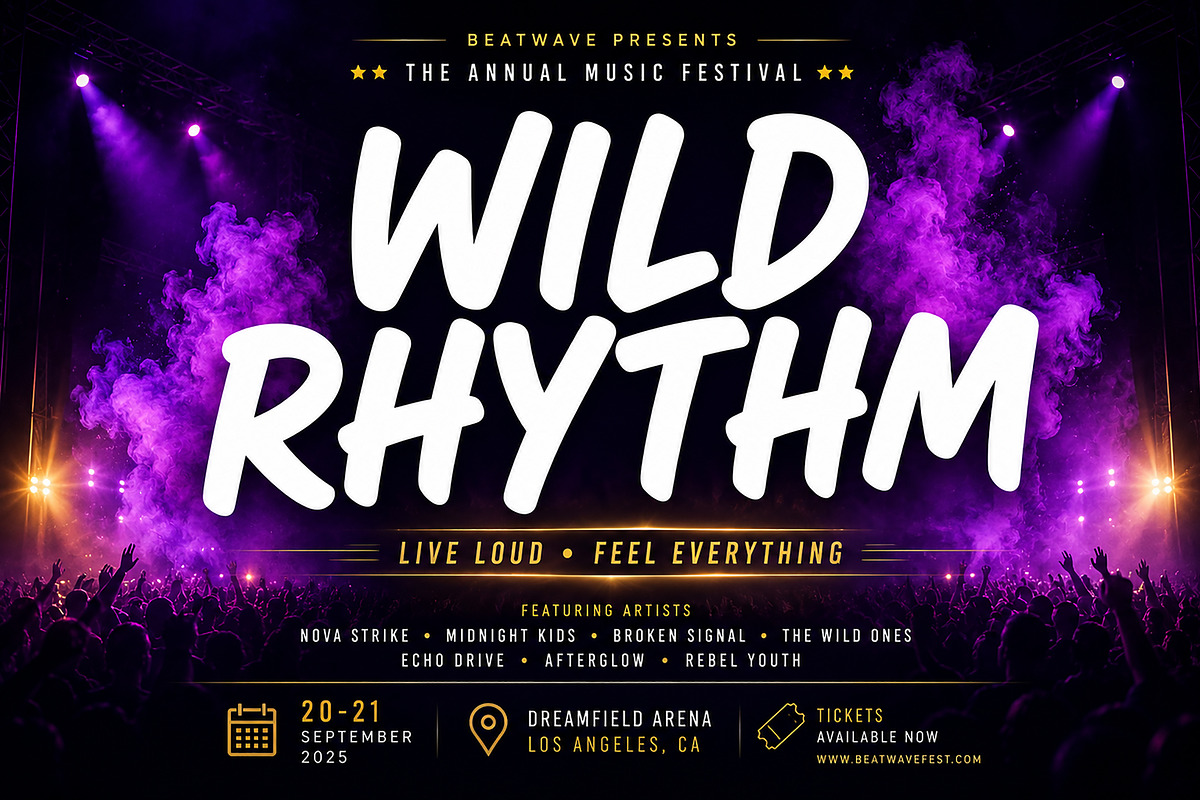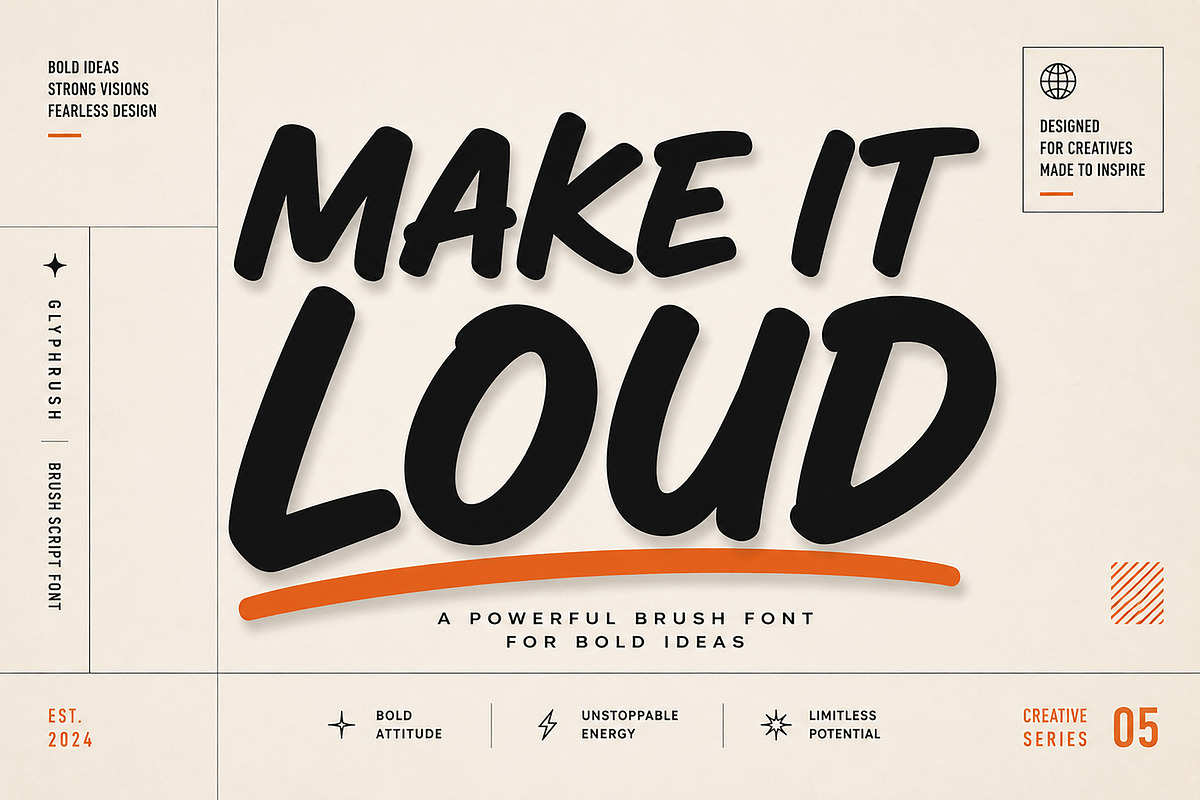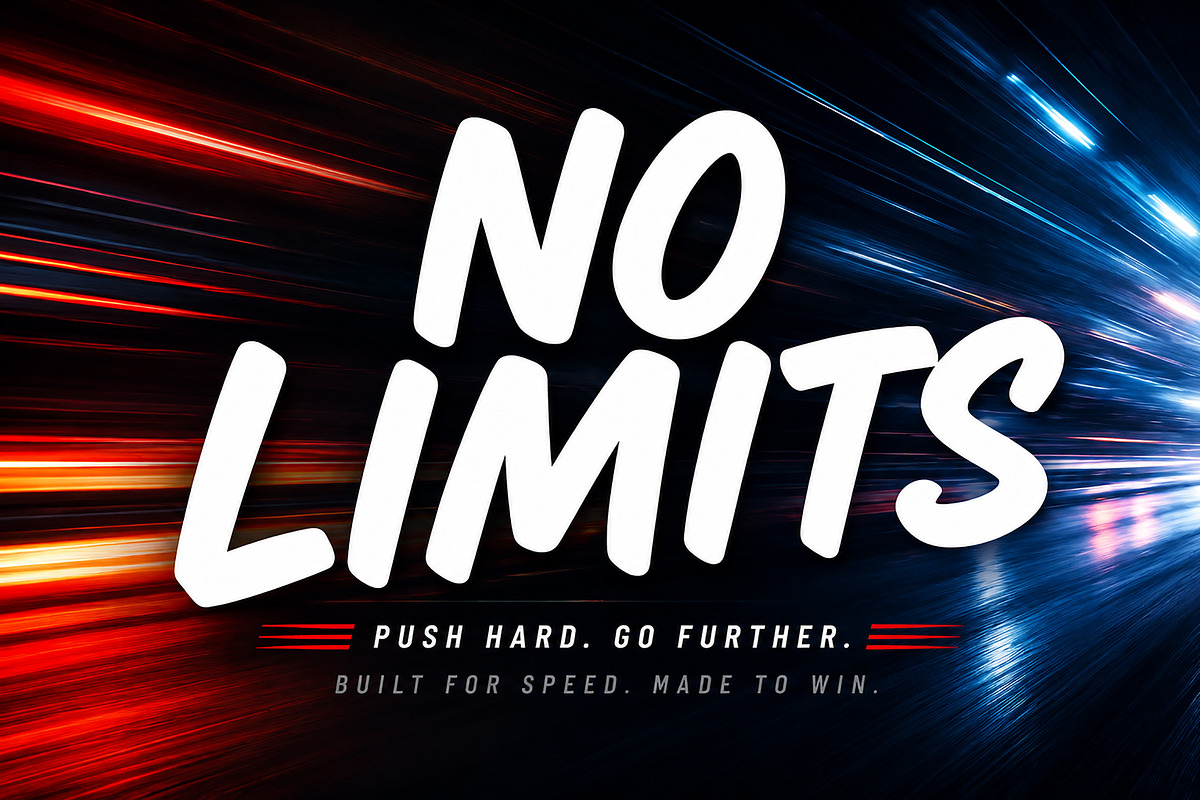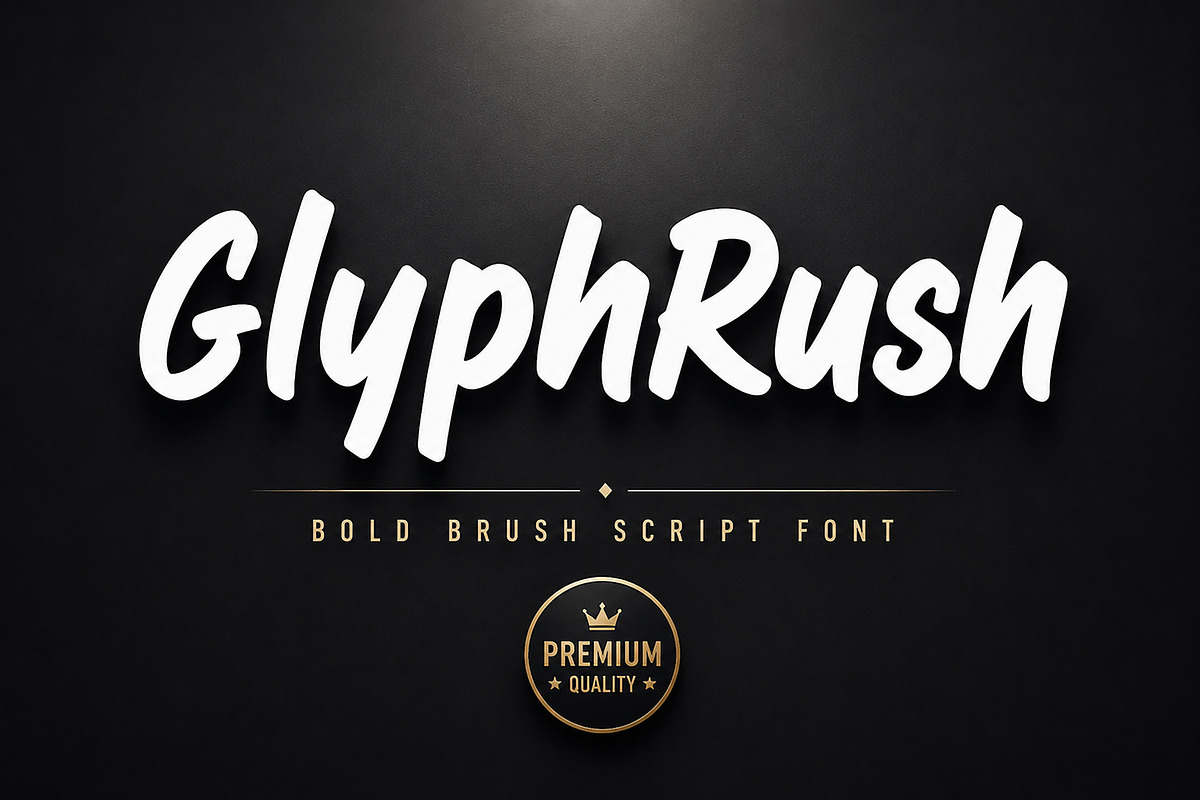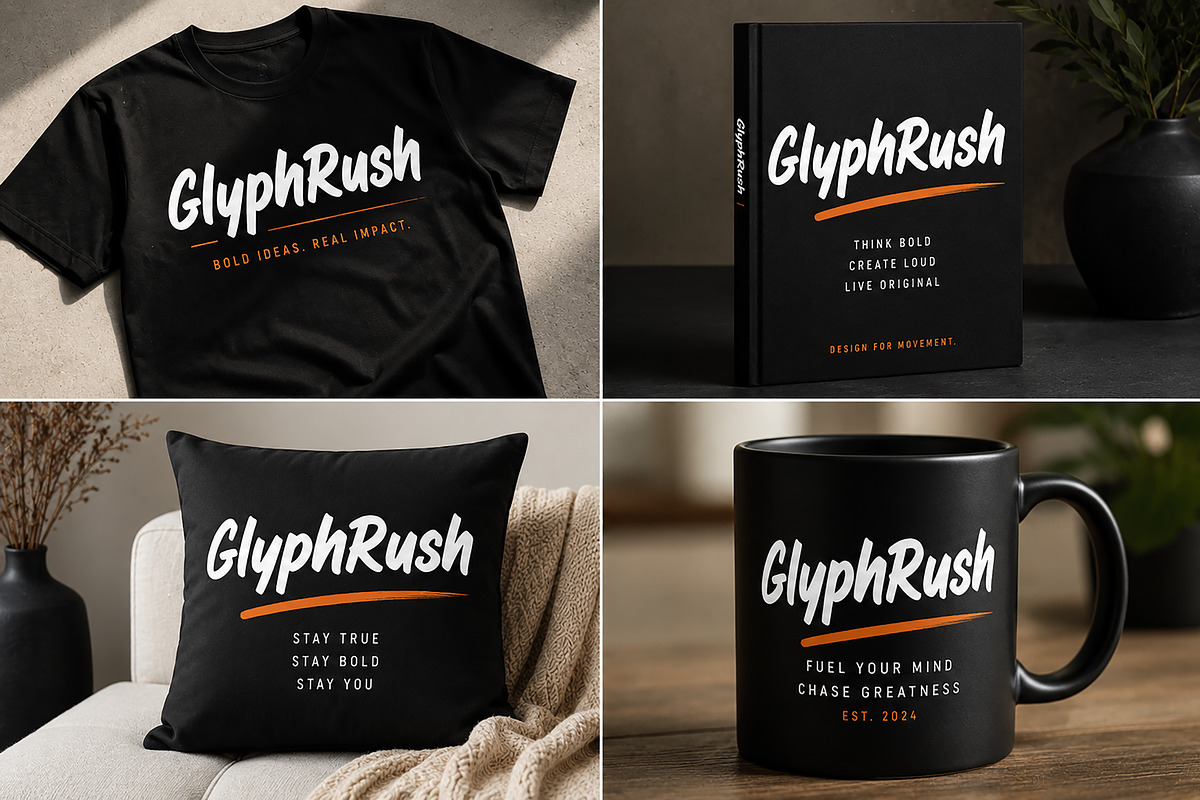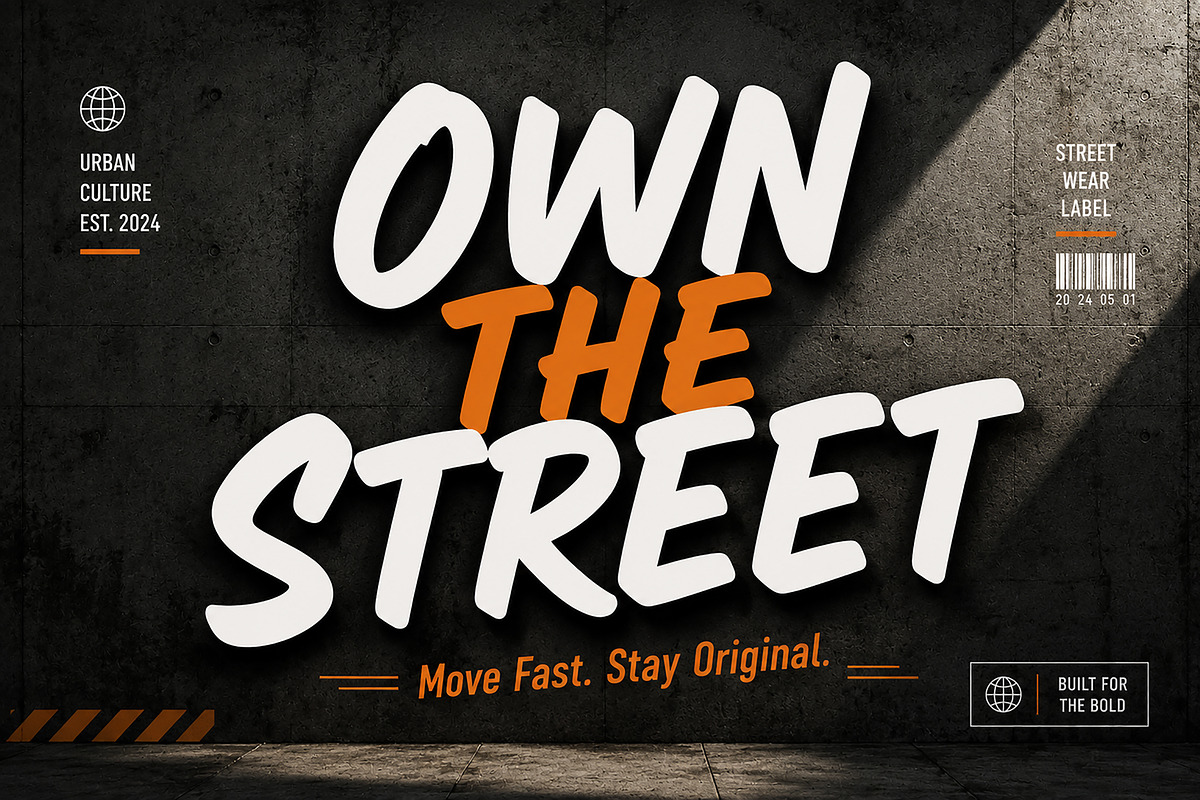
GlyphRush
GlyphRush – Bold Hand-Painted Brush Font
Product Description
Introducing GlyphRush, a bold hand-painted brush font designed to bring energy, confidence, and personality to your creative work. Inspired by authentic brush strokes, this typeface delivers a natural handcrafted feel while maintaining excellent readability for impactful display typography.
Whether you're designing branding, logos, sports campaigns, apparel graphics, music posters, packaging, or social media content, GlyphRush adds a powerful and expressive touch that instantly grabs attention.
Its bold brush texture and modern urban character make it an excellent choice for designers looking to create eye-catching visuals with a handcrafted aesthetic.
Ideal For
Branding
Streetwear
Apparel Design
Sports Graphics
Music Festival Posters
Album Covers
Product Labels
Advertising
YouTube Thumbnails
Headlines
Posters
Magazine Covers
Promotional Materials
Creative Projects
Authentic Hand-Painted Brush Style
Bold Display Typeface
Natural Brush Texture
Strong & Expressive Letterforms
Perfect for Large Headlines